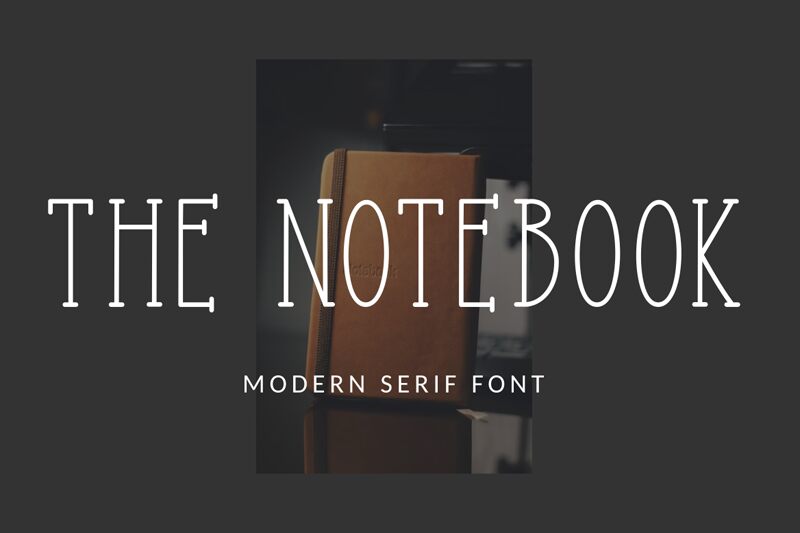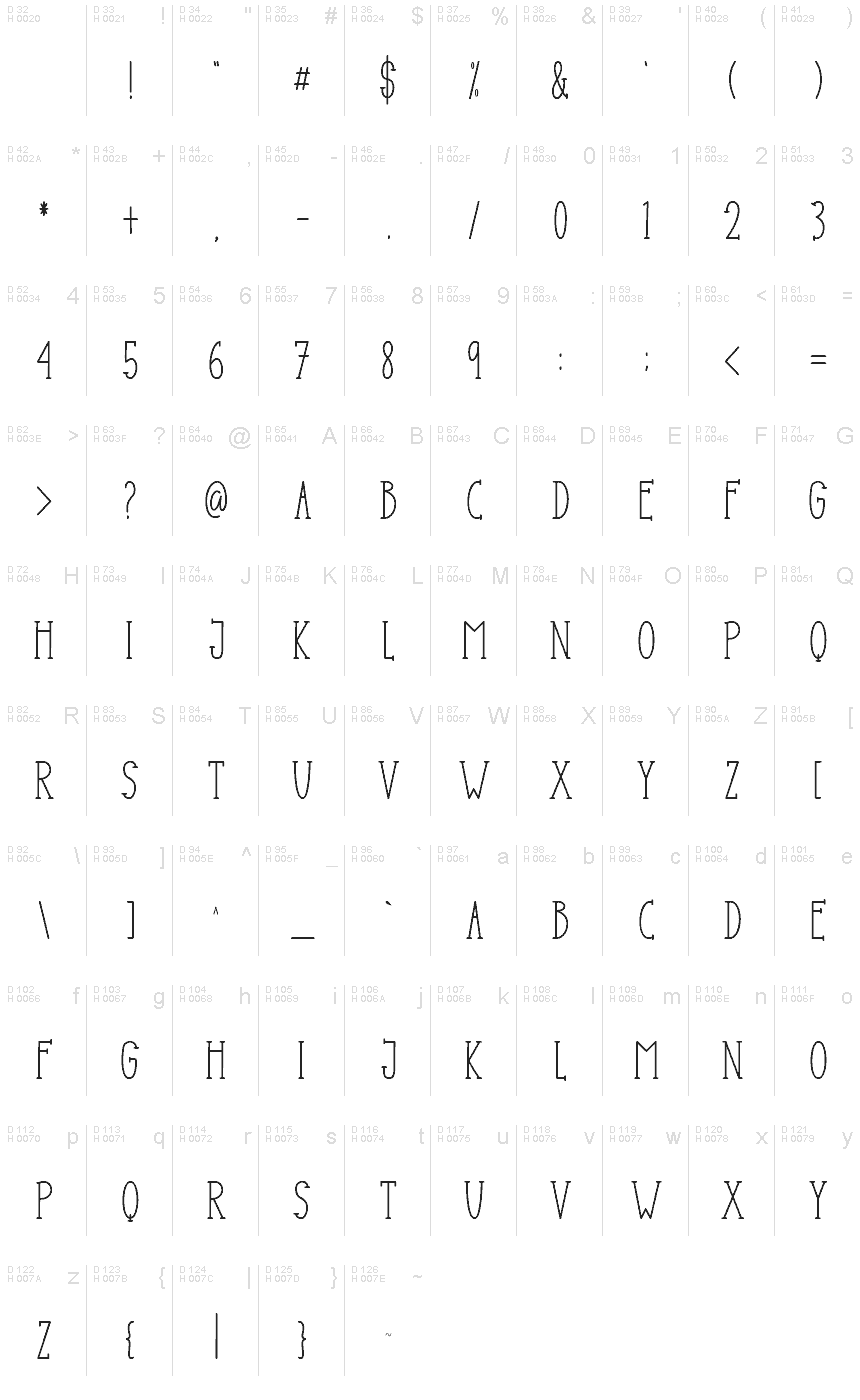
The Notebook
The Notebook font by Goodrichees combines elegance with a classic touch in this light condensed display font. Refined and sophisticated, it takes your simple ideas to a more professional level that earns notice. Each letter is designed carefully following the themes of European classics adapted to modern tastes for a remarkable appearance.